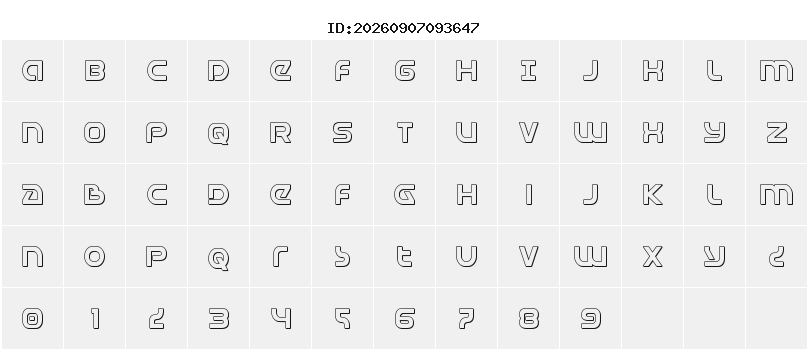
• Font Name: Universal Jack 3D
Universal Jack 3D.ttf is a modern, elegant sans-serif font designed for ultimate readability and visual harmony. Perfect for branding, headlines, web design, and print materials.